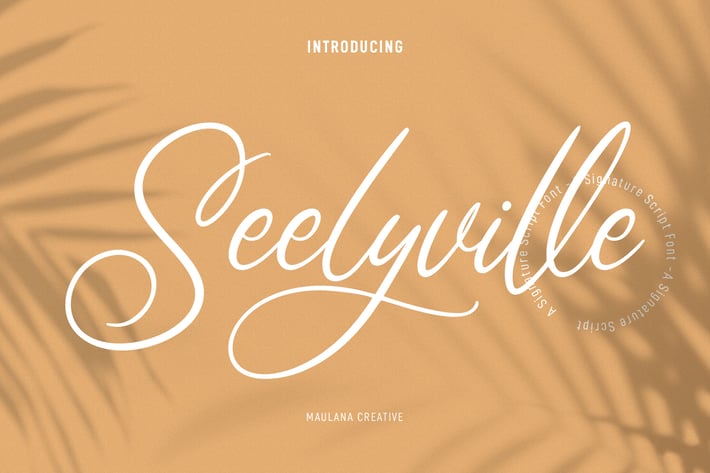
Seelyville Beauty Script Font
Seelyville is a modern beauty signature script font. With slanted high contrast stroke, fun character. To give you an extra creative work. Seelyville font support multilingual more than 100+ language. This font is good for logo design, Social media, Movie Titles, Books Titles, a short text even a long text letter and good for your secondary text font with sans or serif. Make a stunning work with Seelyville font.